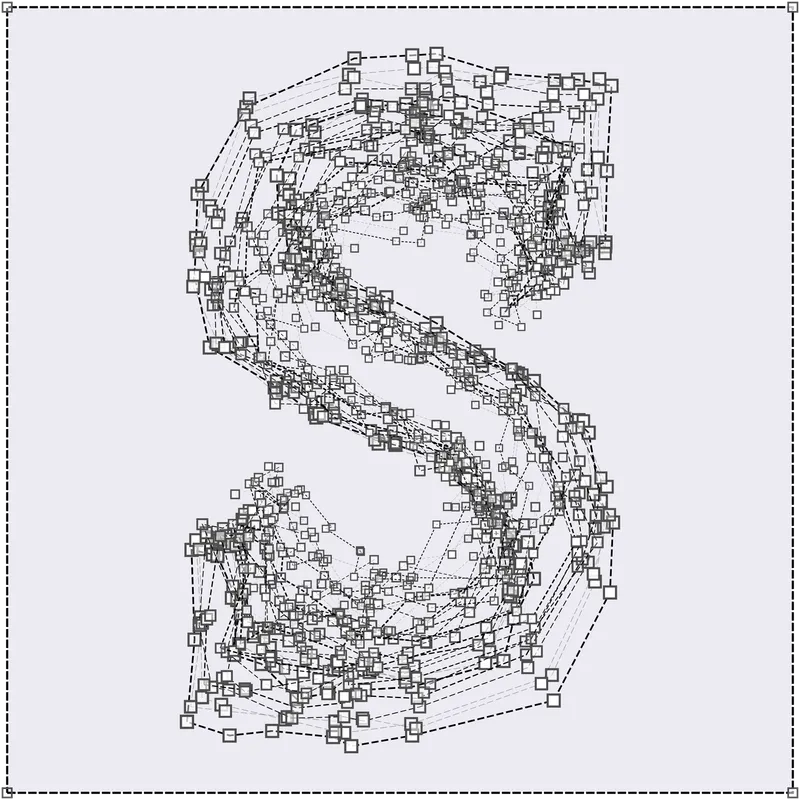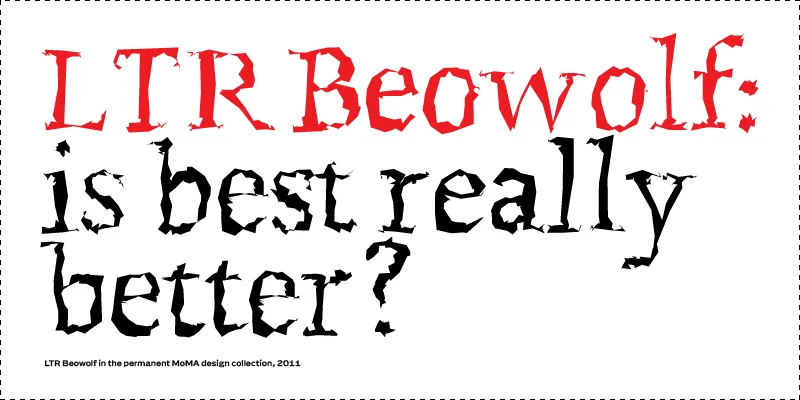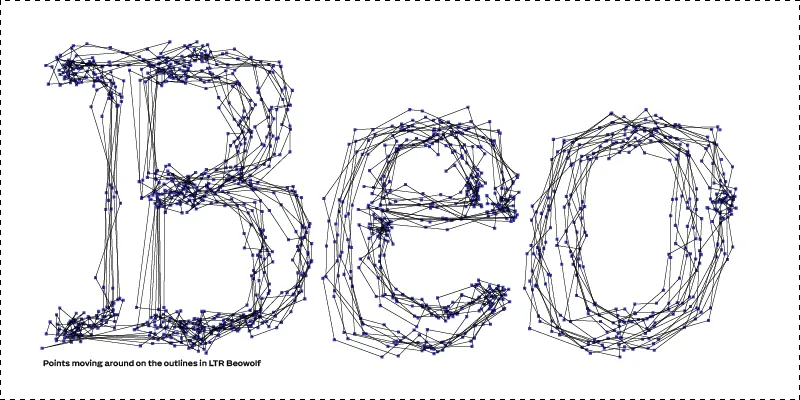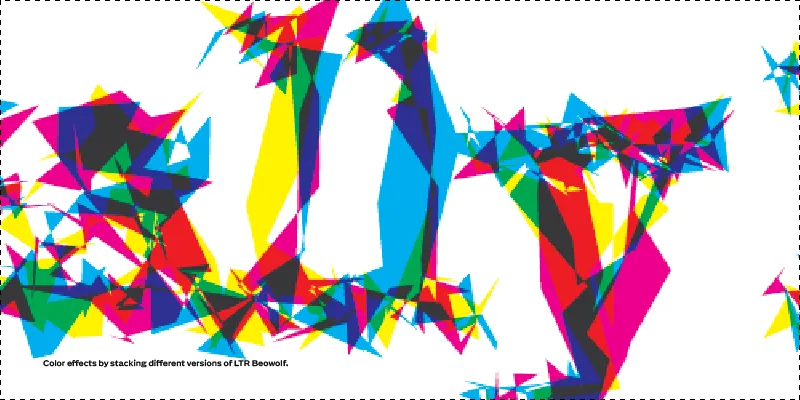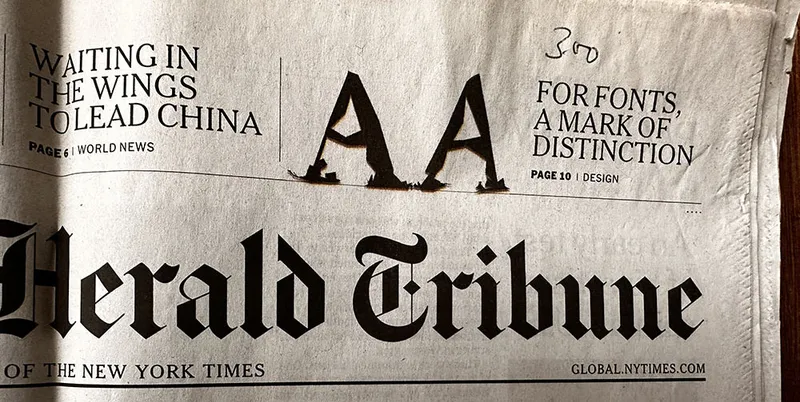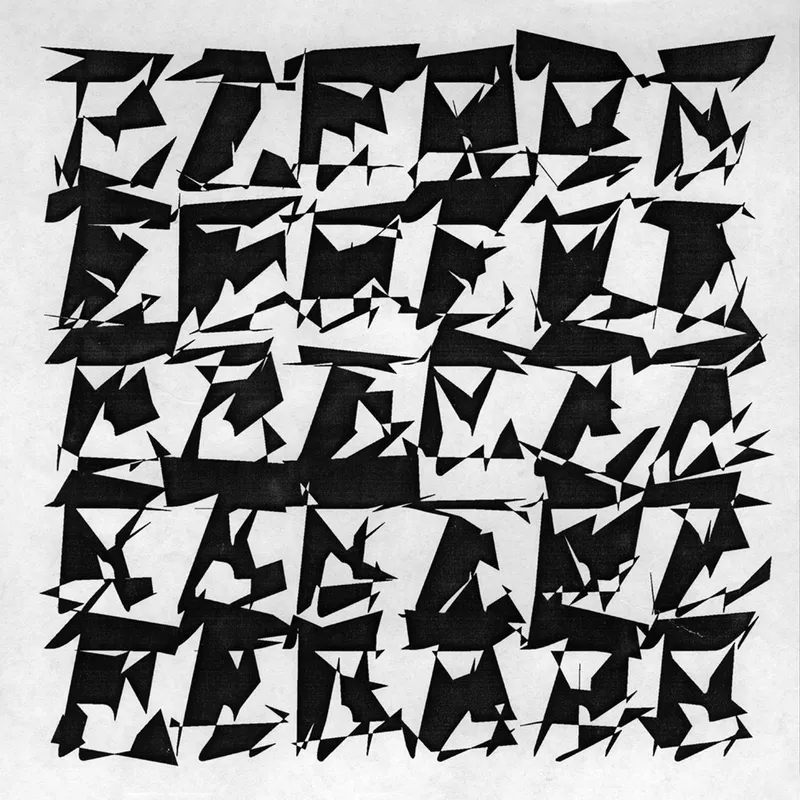
LTR Beowolf, in this OpenType edition, was assembled by using the same randomisation routines that controlled the original PostScript randomfonts. Each letter cycles through six, genuinely pre-randomised variations. You will see the iconic randomised jaggedness, determined by the distance the individual points have moved. As with the classic PostScript, these OpenTypes comes in three degrees of random: R21, R22 and R23.
In 2010 the MoMA in New York included LTR Beowolf in their design collection. We can argue about the significance. But we’re not going to because LTR Beowolf is in the MoMA.
Design: Erik van Blokland, Just van Rossum, 1990.
Randomfonts ask you this question: now that print and screens have reached resolutions that can no longer be observed by the eye, what is next? Beowolf proposes an algorithmic roughness to tickle the eye.
The same points in different quantum states. All styles of LTR Beowolf have the same number of points. But they are freaking out to different degrees. From almost straight to wiggy.
Colors: use different variations and layering to create striking effects. Unlike AI slop, Beowolf was created under controlled circumstances.
Apple Laserwriter 1 just did not have enough compute. Despite the combined efforts by Apple, Canon and Adobe to build this really powerful Graphic Processing Unit, Beowolf brought it to its knees.
Critical reception for Randomfonts
Clippings from the time when a freestyling PostScript printer was somehow world news.
Museum of Modern Art in New York: “The sameness of type seems an arbitrary thing that we can do away with in certain cases.” In order to achieve this effect, they substituted the programming commands “lineto” and “curveto” in the PostScript code (PostScript is a computer program that describes what the outlines of letterforms are designed to look like) with their own command “freakto.” “Freakto” causes a letter to be randomly generated with erratic outlines.” LTR Beowolf in the permanent MoMA design collection
Emily King, Frieze: “While Beowolf and their subsequent random fonts have broken with current typographic convention, LettError view the standardisation of letterforms that resulted from mechanical typesetting not as typographic perfection, but merely as a phase in a much longer history of written communication.” Frieze, 1995. Profile on LettError
Emigré #18: Type-Site: “While working on Randomfont we became aware that if we treated typefaces as computer data, instead of fixed letterforms, we could create some very bizarre systems.” Article text. / See the whole magazine at the LetterForm Archive
Robin Kinross: “LettError has investigated how things might change, and how you might set up a system that accomodates and provides useful change. One can see this even in the progression from Beowolf, which had an excess of variation, and to no great effect to the Flipper fonts that followed.” LettError: Nypels Prize. Unjustified Texts, perspectives on typography. Hyphen Press, 2002. New release at Editions-b42
David Berlow: “After letting each apprentice make my Laserwriter cry for its motherboard, I taught them what I could, about output that could be designed. And Beowolf, as it became called, faded into a typo-technical dream-time, waiting for the united motherboards of planet earth, or something, to lighten up!” Review of Beowolf and BeoSans on Typographica in 2008
David Crow: “Their aesthetic clearly celebrating the handmade and the physical, LettError harnessed digital technology to create letterforms by art-directing the multiple possibilities programmed into their bespoke software engines.” Eye Magazine, Winter 2008
John L. Walters, Fifty Typefaces That Changed the World, 2013: Beowolf, true its almost-namesake Beowulf, remains an uncaged beast, and in its ingenious subversion of digital code the typeface anticipates the process-driven and interactive design of the twenty-first century.
Erik Spiekermann, Wired Magazine, 1995 You made the first “random” typeface, called Beowolf, by replacing the commands “lineto” and “curveto” in the PostScript code with your own command “freakto”. The new command calls up a random generator that makes the character outlines irregular. When you created Beowolf, were you trying to prove something, or was it just a joke? Article
Willem Velthoven, MediaMatic, 1990: Seemingly trivial and maybe aesthetically not very pleasing. Beowolf is of important polemical value. Van Blokland and Van Rossum proved it possible to part with the rigidness that has characterized type since Gutenberg. If the forms of a character can be modulated by a random figure it also becomes possible to let a character interact with its environment, be it either typographical, semantic or semiotic. Article